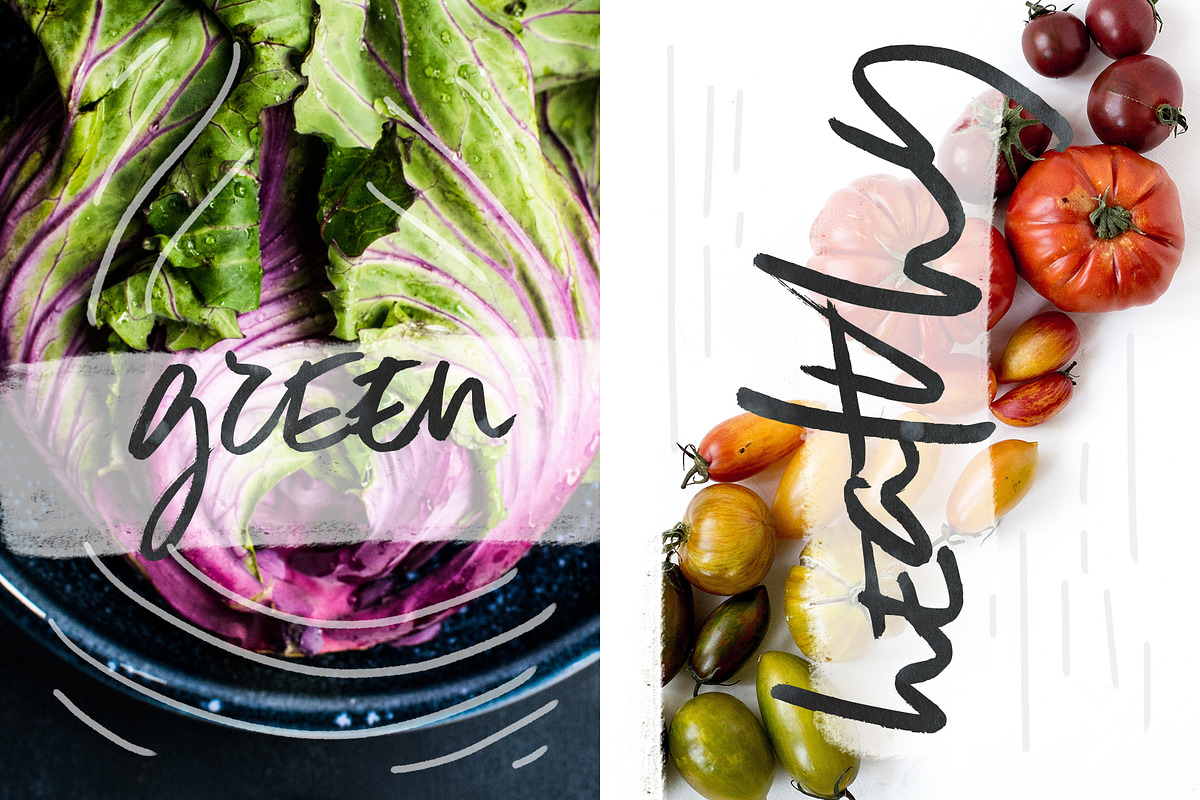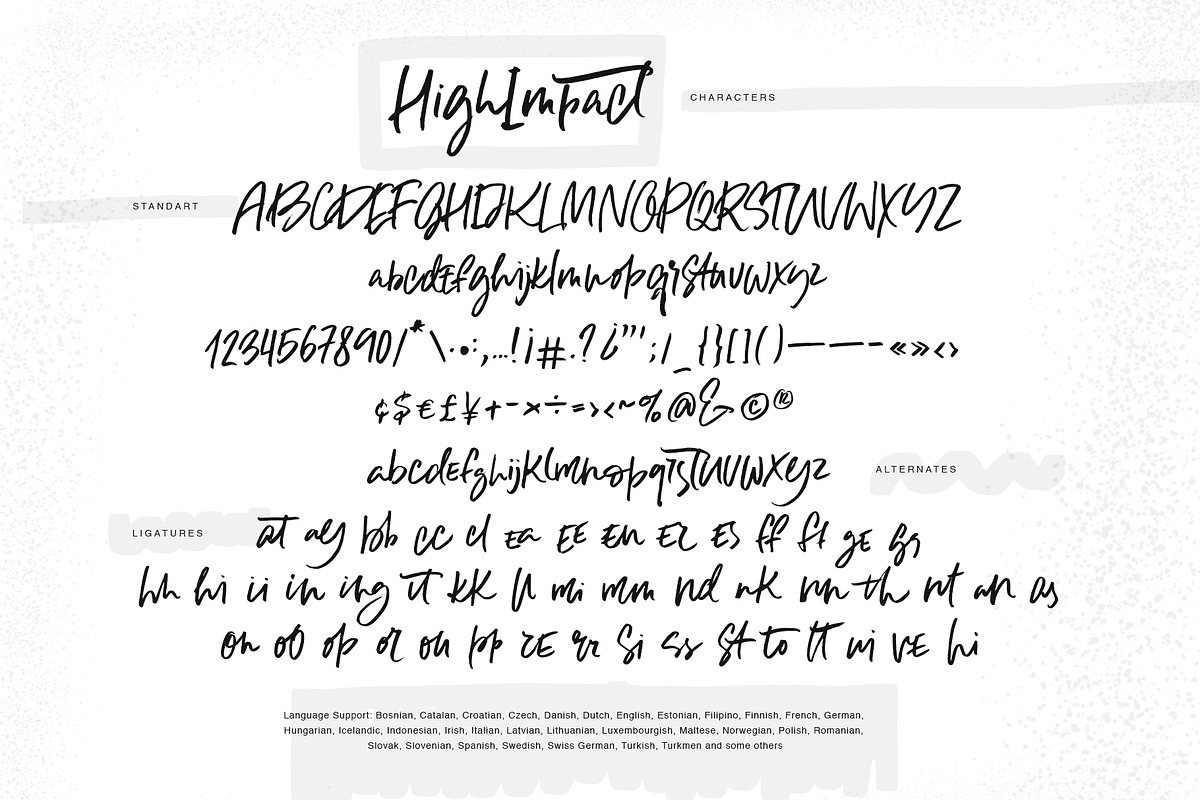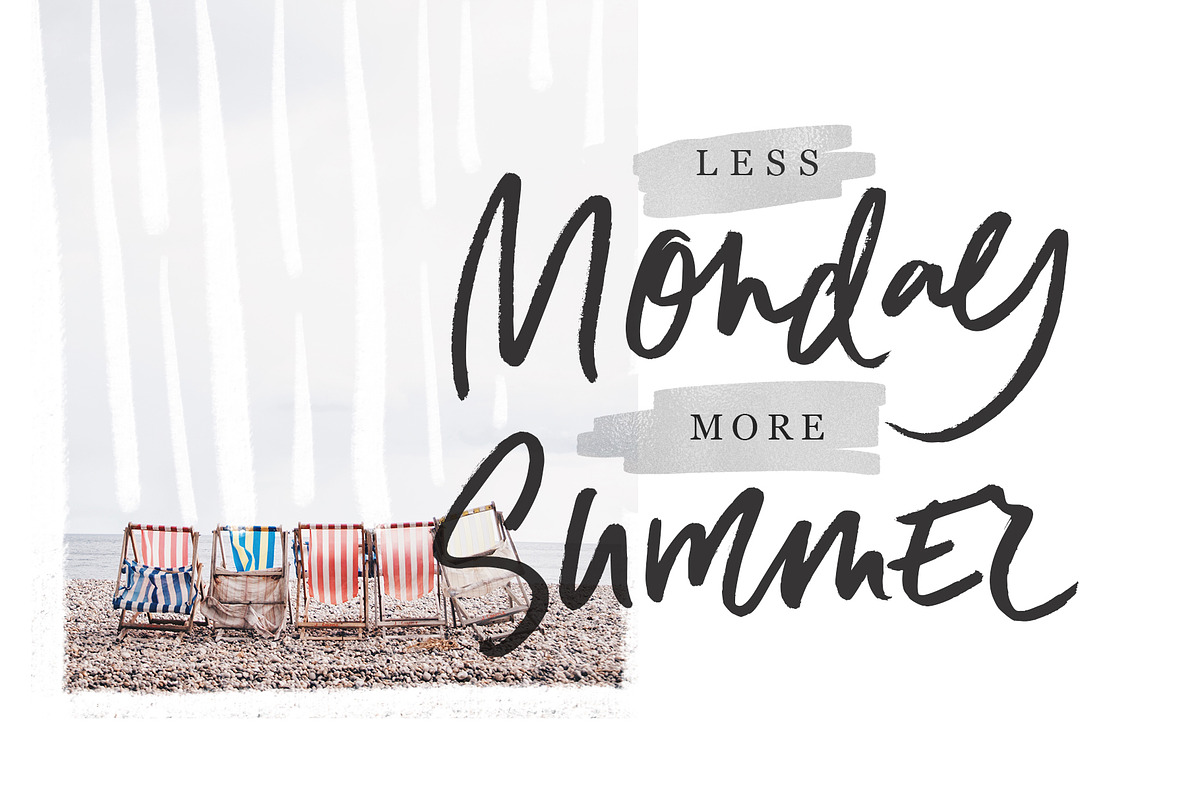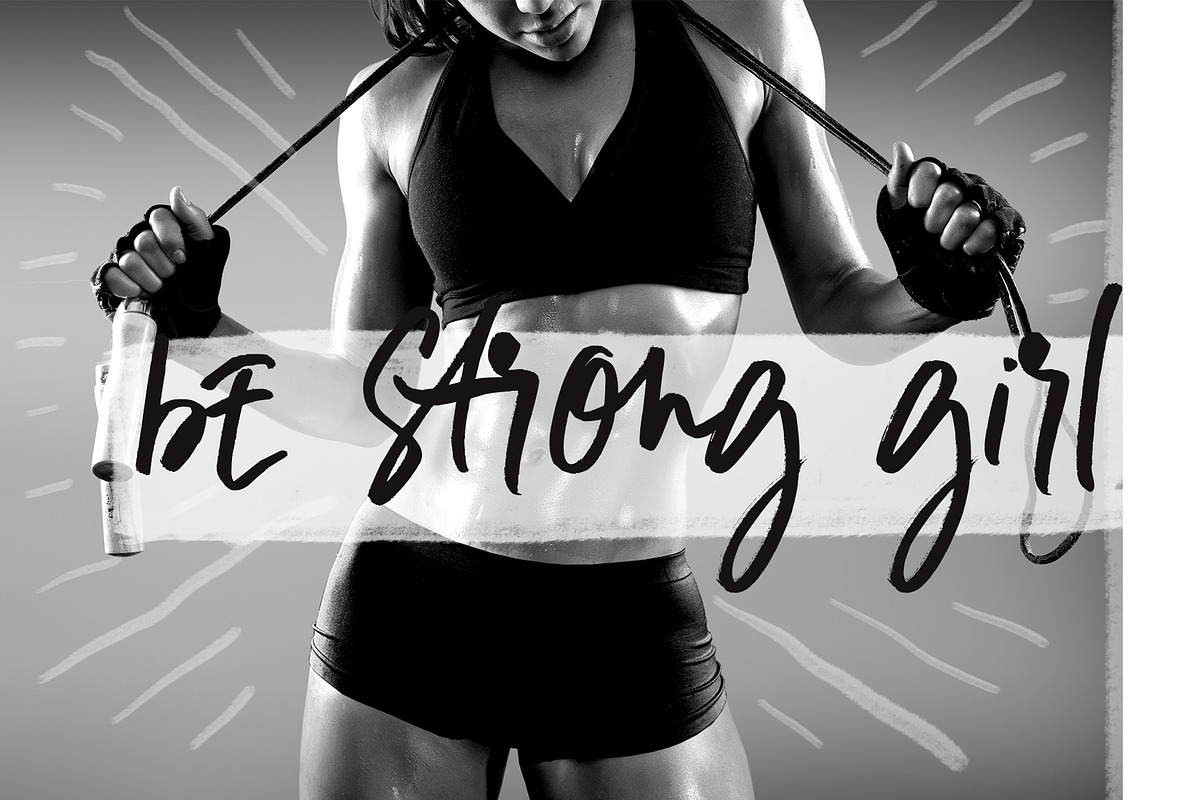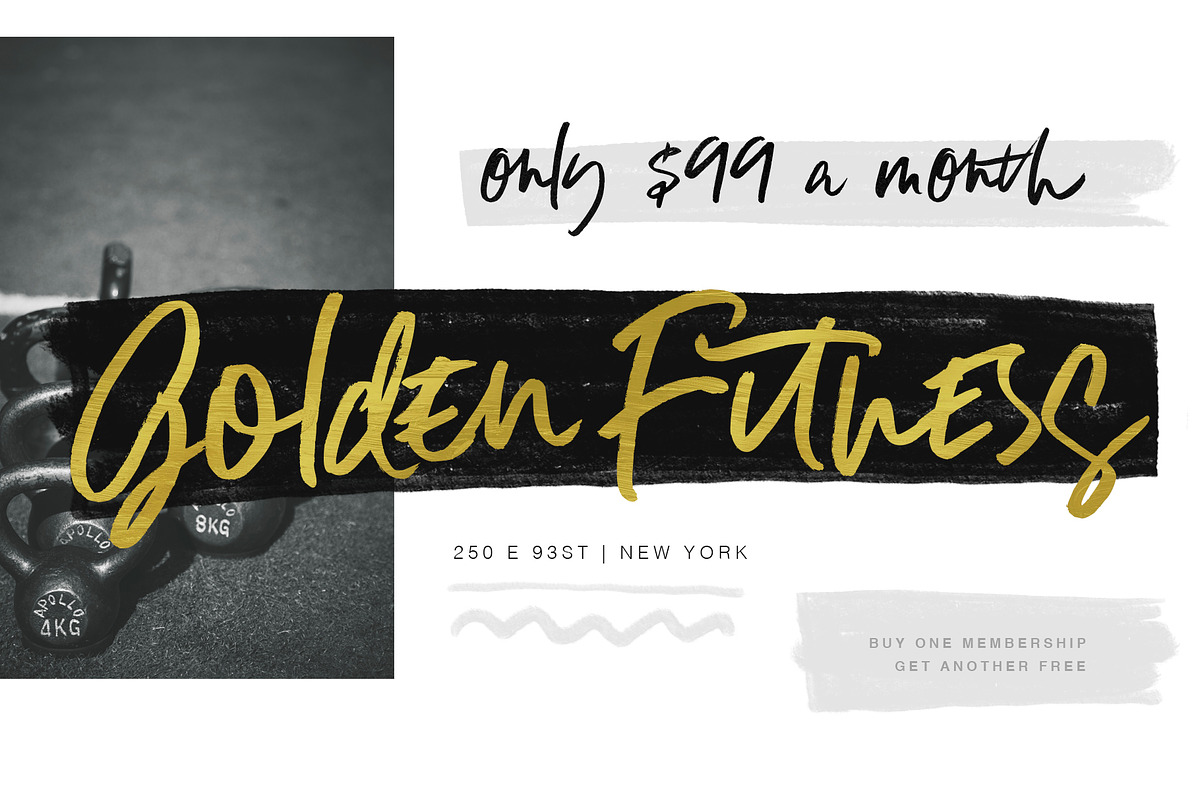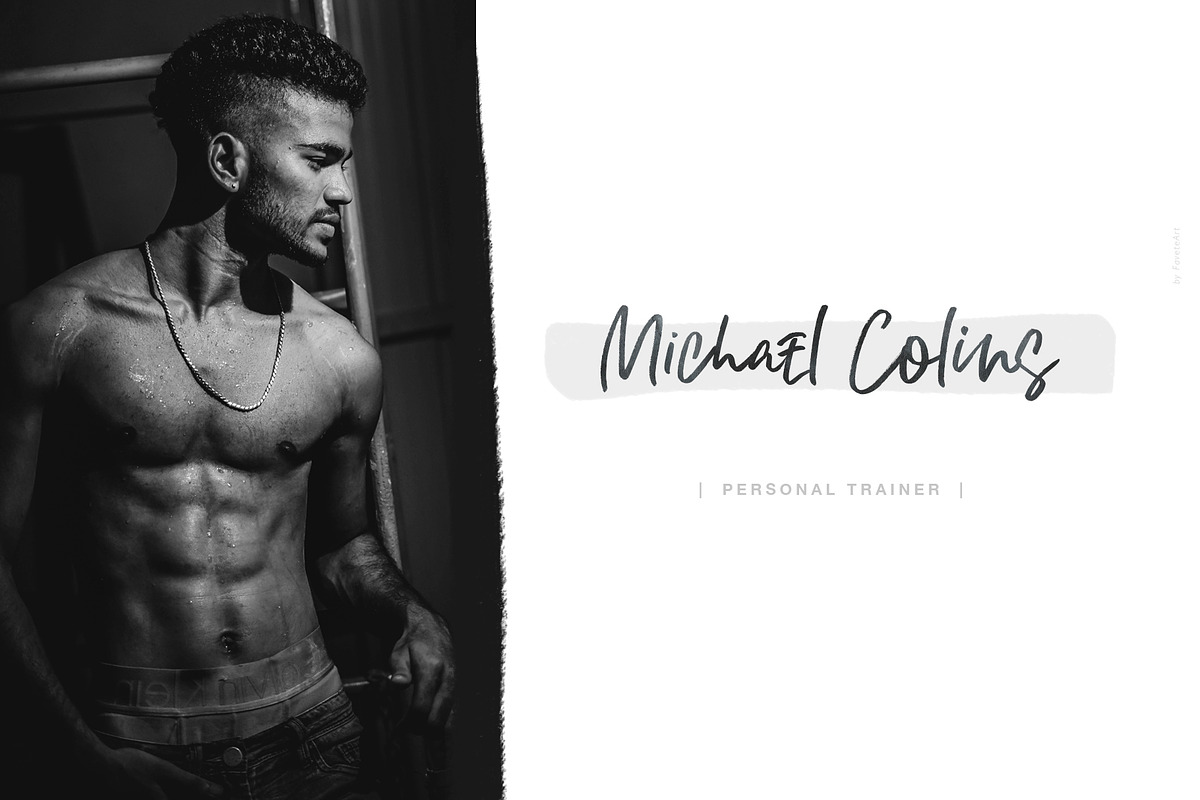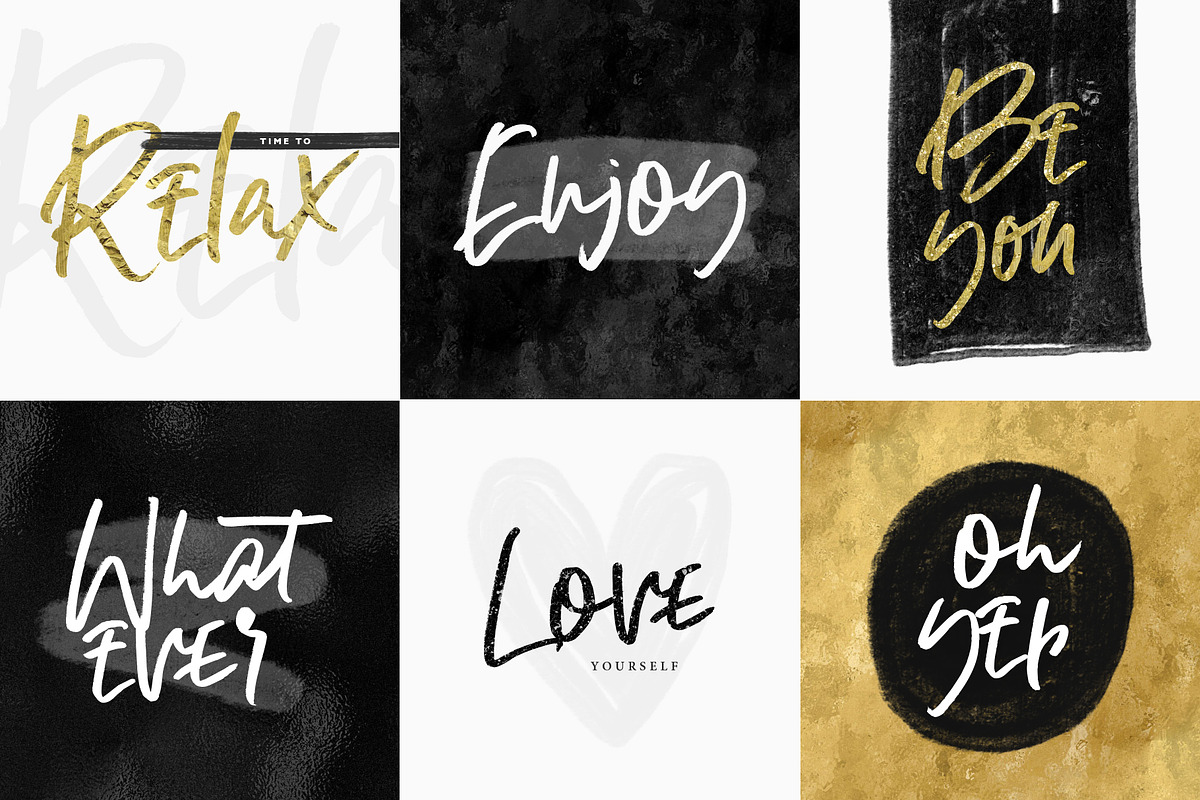
High Impact Font
High Impact is a hand drawn script font with organic feel. It was made for sports and fitness industry, as it's highly energetic and active. Bouncing baseline makes this font both playful and unique. And tons of ligatures (that will work by themselves if your app supports .otf) will help to imitate passionate handwriting. High Impact also contains a full set of lowercase alternates to make your message look awesome. Despite imperfect looks, High Impact is a well thought-through font, with well organised structure.
High Impact has extensive language support - besides English it supports most of European languages. If your language is not supported - drop me a PM and maybe I'll be able to extend language support even further.
- High Impact also contains a full set of lowercase alternates to make your message look awesome.
- And tons of ligatures (that will work by themselves if your app supports .otf) will help to imitate passionate handwriting.
- High Impact also contains a full set of lowercase alternates to make your message look awesome.
Why High Impact Font is worth a look
High Impact Font by Favete Art fits naturally into Branding, posters, packaging, typography.